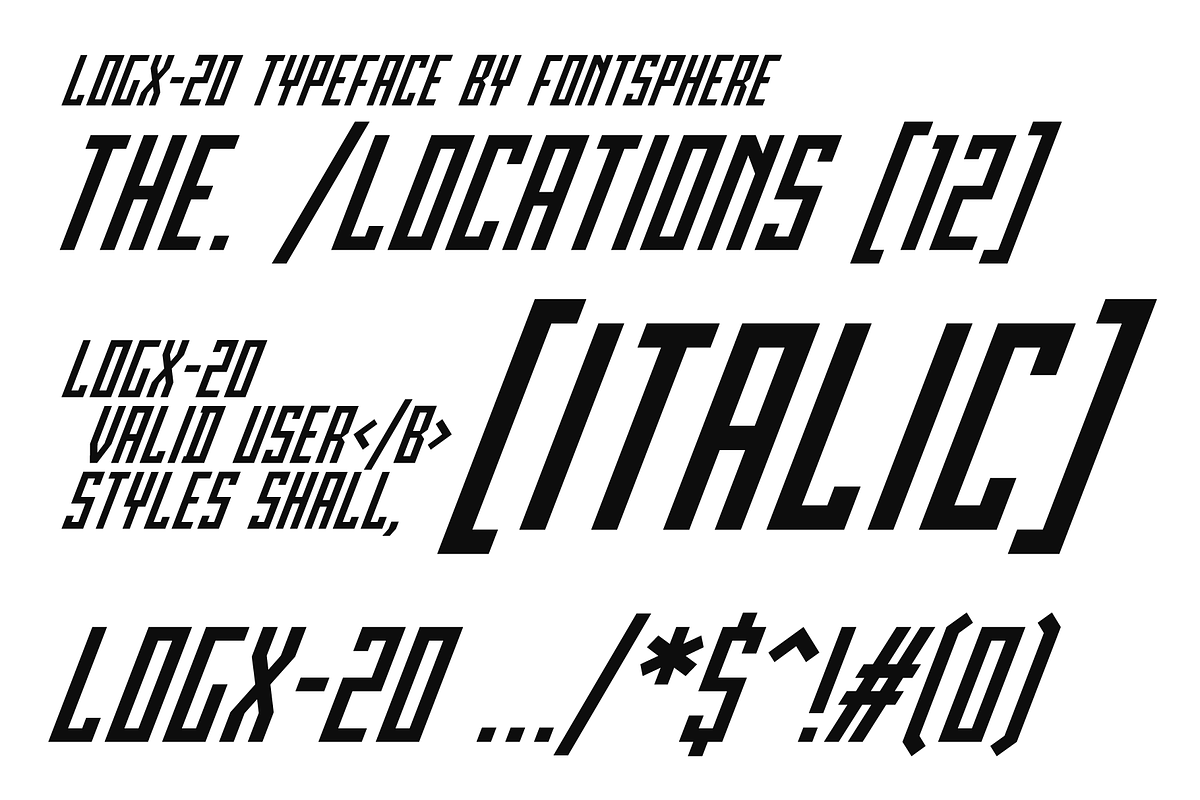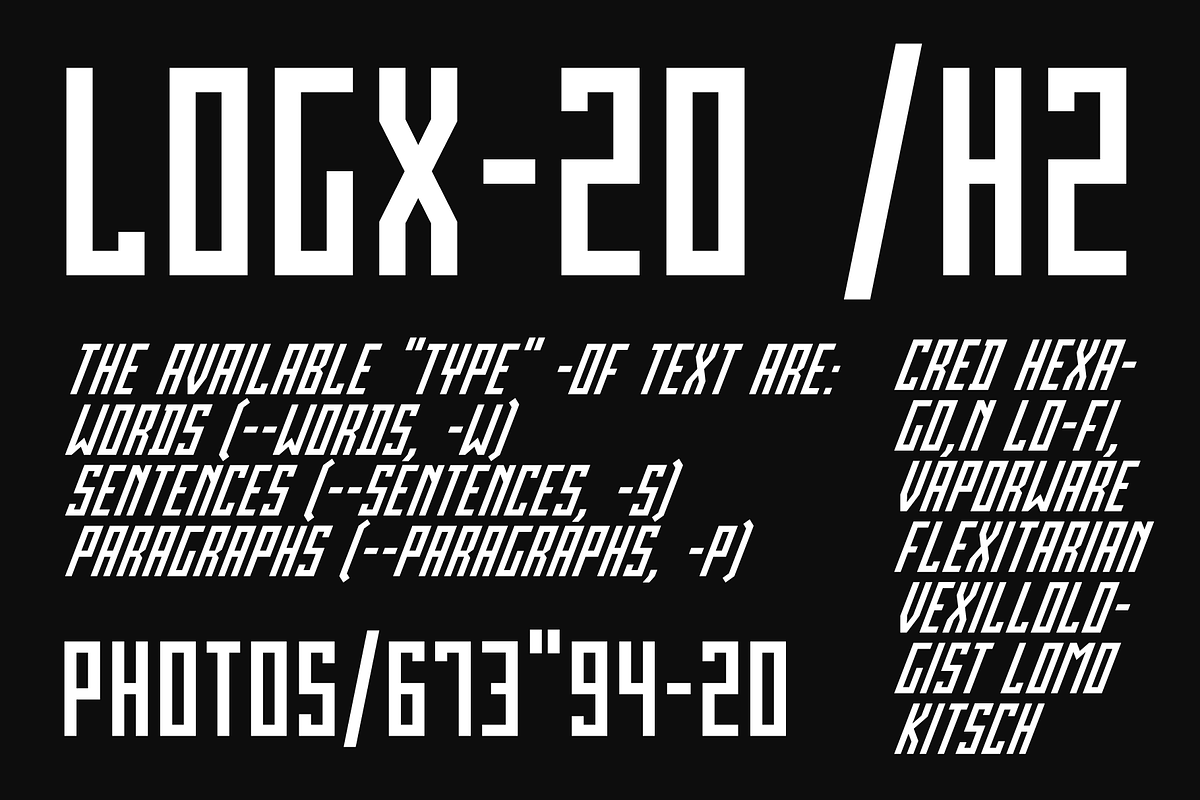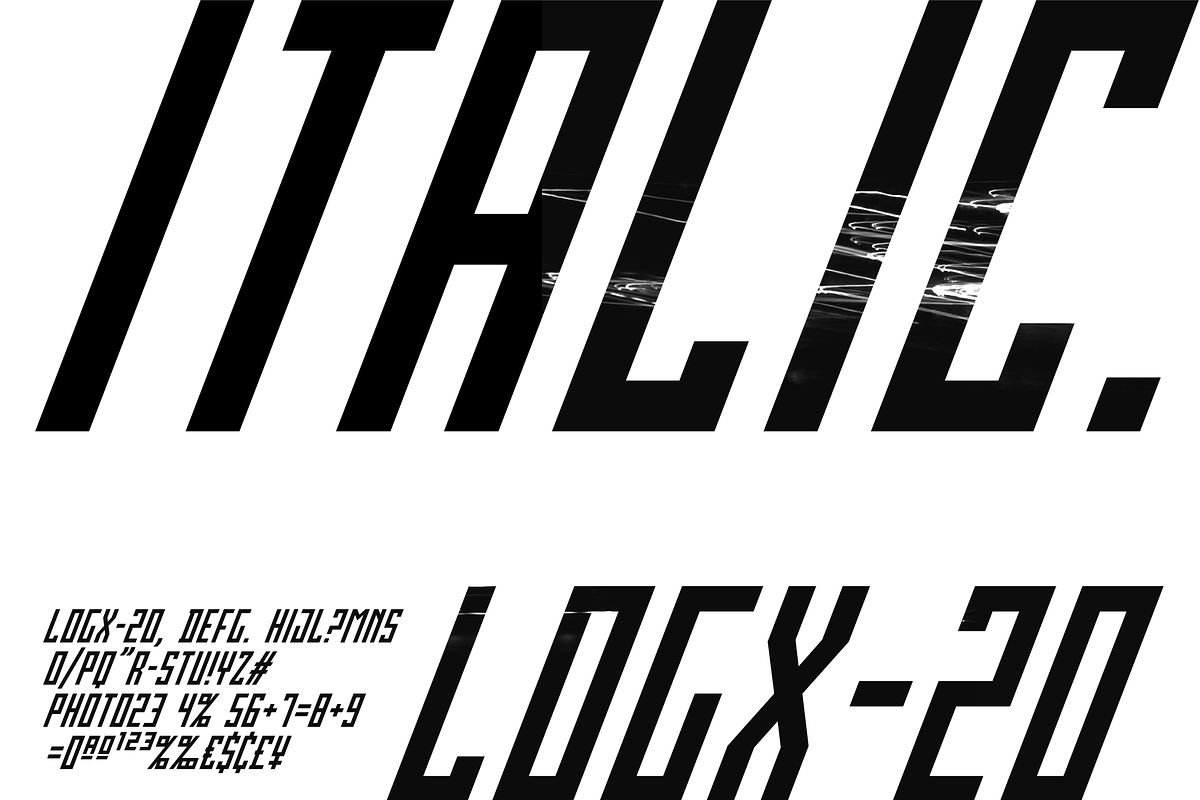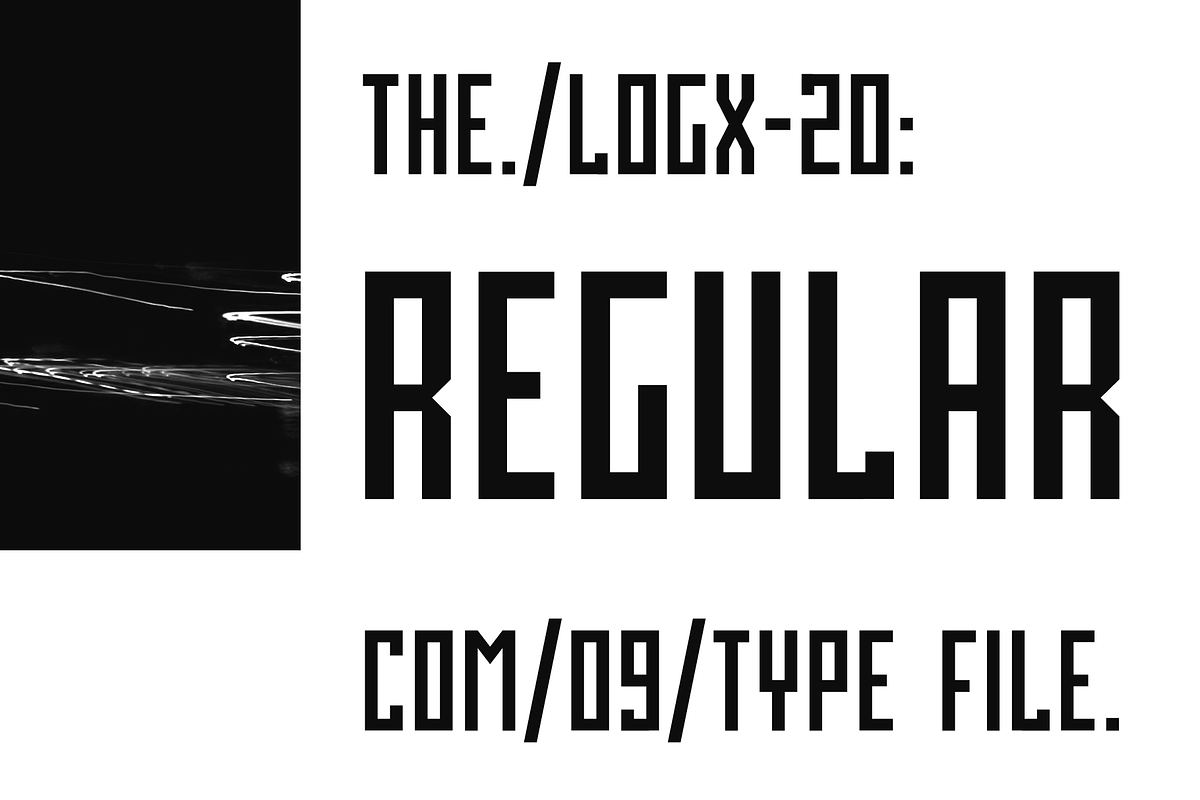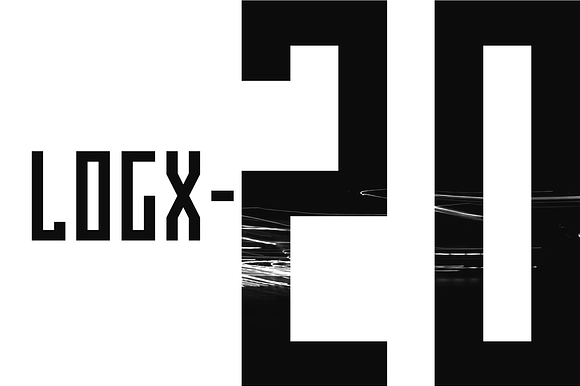
LOGX-20 Font Family
LOGX-20 is a geometric, all-caps, display typeface. This is the brother of the LOGX-10 font. It obviously refers to the previous one, but considering the construction, it is a different typeface.
LOGX-20 is designed to create elements of visual identification, various creative projects and outstanding graphics.
It looks great in arrangements with different text sizes, headers, sentences and longer texts. Both on websites, print or applications.
LOGX-20 Font Family by Fontsphere fits naturally into Branding, posters, packaging, typography.